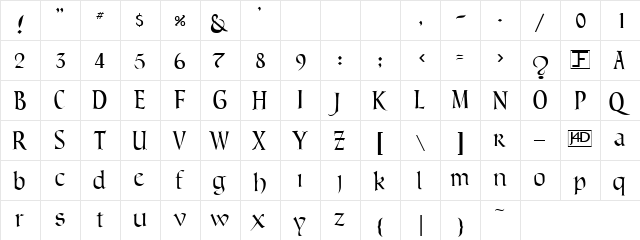
Greenowic Narrow Normal
Design Context for Greenowic Narrow Typeface
Greenowic Narrow takes a measured approach to typography — its balanced proportions and neutral character make it a reliable workhorse for both digital and print work. Its narrow stance lets it pack a punch even in space-constrained designs.